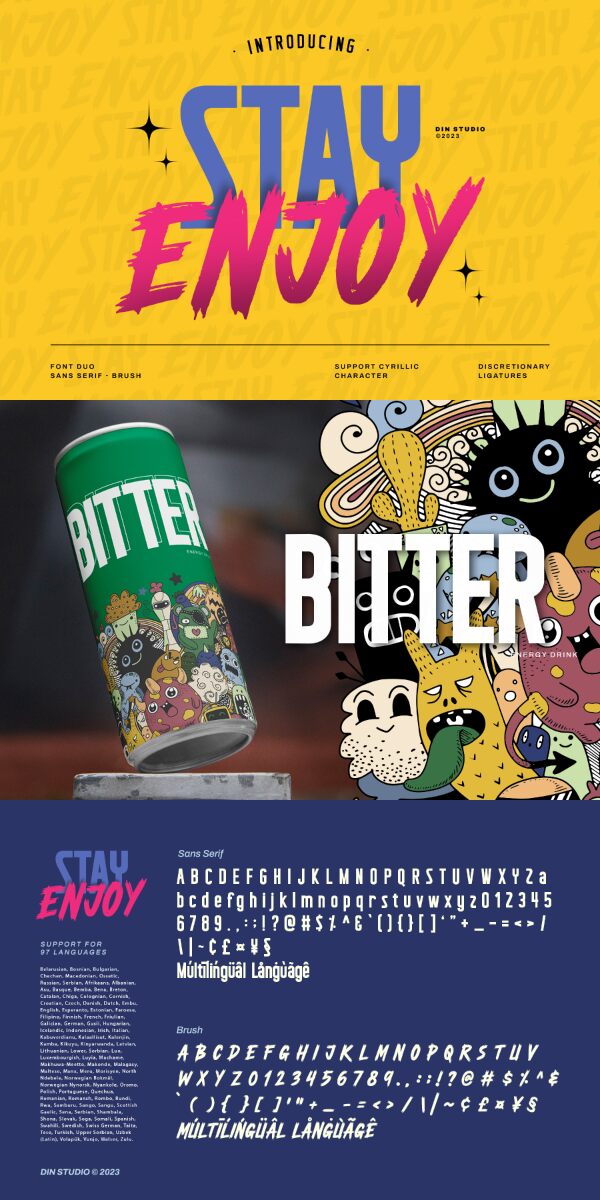
Stay Enjoy font by Din Studio is a modern free font with an energetic appearance, dynamic strokes, and contrasting visual elements. A sans serif typeface with the ability to capture one’s attention with its bold and expressive characters, it’s a piece that challenges itself to become youthful and vibrant with each use.
Creating contemporary applications will be as easy as it gets with how versatile Stay Enjoy can be. Design branding designs for both local and international companies with eye-catching logos, packaging projects that focus on the product and its brand, invitations for themed or colorful parties and get-togethers, and posters and ads for events. Keep its modern design in mind as you use it for flyers, social media posts, and mobile app designs, or simply explore new typographic designs with Stay Enjoy.
Stay Enjoy is a captivating sans serif and brush font duo. The sans serif font in Stay Enjoy embodies timeless elegance and sophistication, with clean lines and a modern aesthetic. In contrast, the brush font of Stay Enjoy bursts forth with creativity and energy.